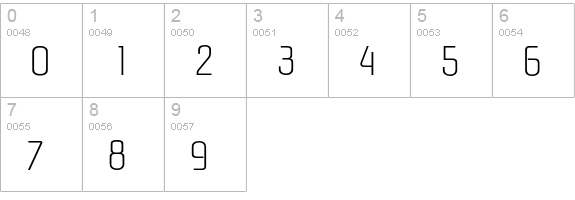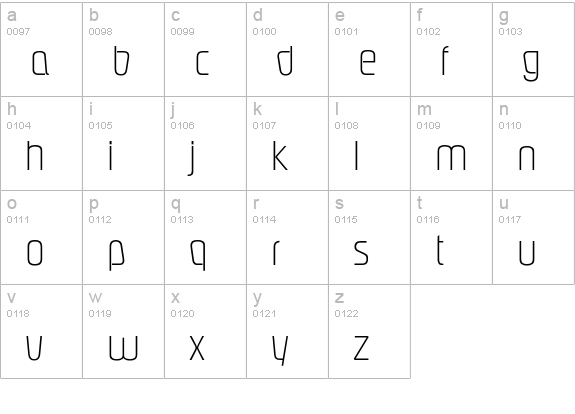
Pasadena-Xlight is a stunning font that effortlessly combines elegance and modernity. Designed with utmost precision and attention to detail, this font is perfect for adding a touch of sophistication to any design project. Its sleek and minimalistic appearance makes it versatile and suitable for various applications, whether it's branding, advertising, or editorial design. The slender and refined letterforms of Pasadena-Xlight exude a sense of grace and refinement. Each character is delicately crafted, with clean lines and subtle curves that create a harmonious visual balance. The light weight of the font adds to its ethereal quality, giving it a gentle and airy feel. What makes Pasadena-Xlight even more appealing is that it is free to download at FontsMarket.com. This means that designers and creatives can easily access this exquisite font without any cost. Whether you're a professional designer or a hobbyist, this font offers a high-quality typographic solution that won't break the bank. With Pasadena-Xlight, you can effortlessly elevate your design projects to new heights. Its versatility and elegance make it suitable for a wide range of applications, from logos and headlines to body text and captions. The font's timeless appeal ensures that it will remain relevant and impactful for years to come. So why wait? Download Pasadena-Xlight today from FontsMarket.com and experience the beauty and versatility of this exceptional font. Whether you're working on a personal project or a client's commission, Pasadena-Xlight is sure to impress with its elegance and sophistication.